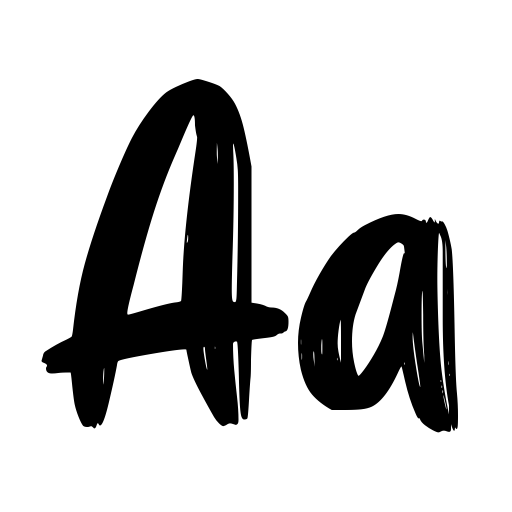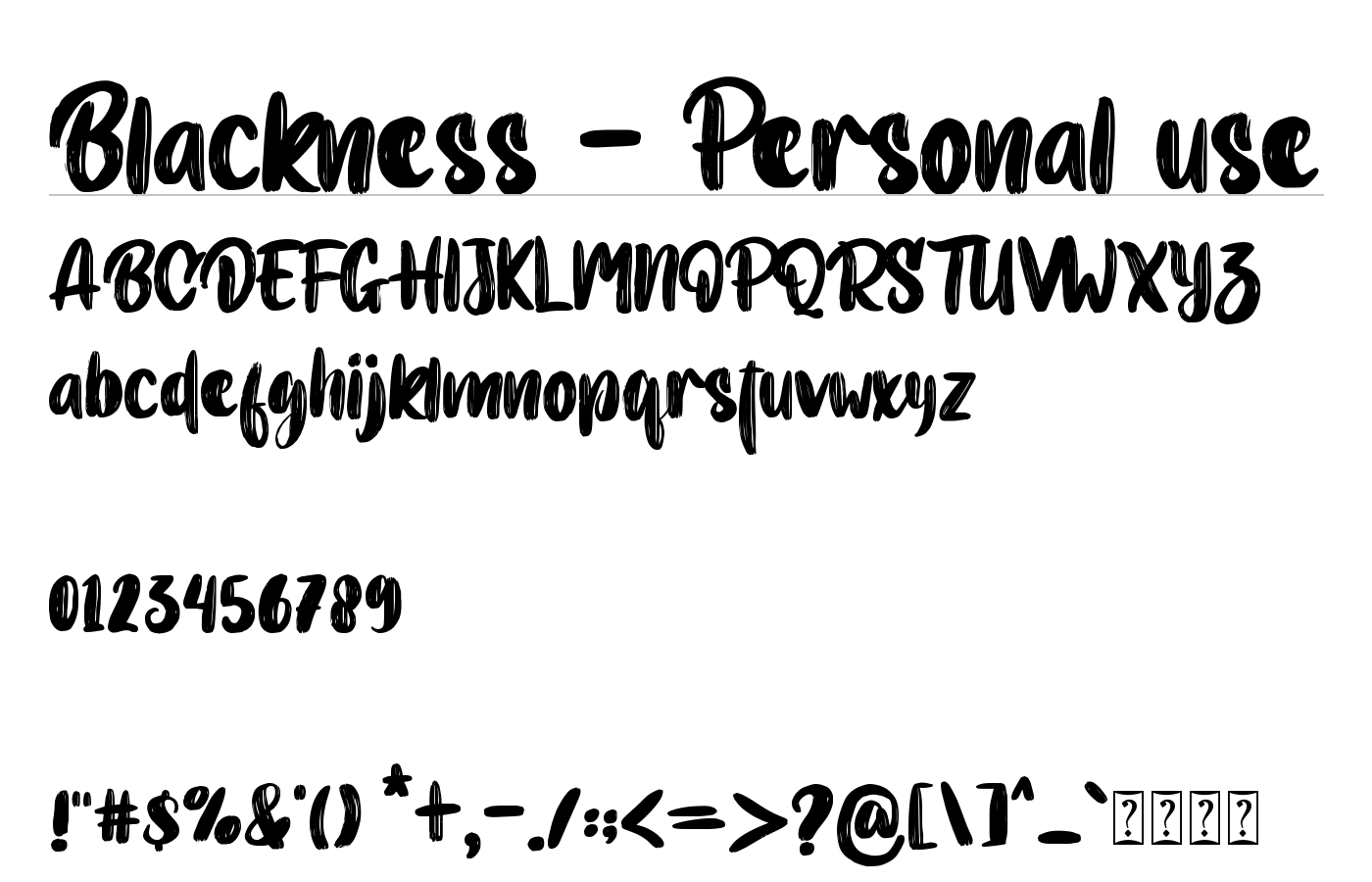
Blackness is a bold, brush-script font with a playful and lively character, featuring thick, slightly irregular strokes that mimic hand-painted lettering. Its tall x-height and casual style make it ideal for adding a dynamic, creative touch to logos, headlines, and packaging, especially for brands seeking an energetic and friendly vibe. This font works well in designs that want to stand out with an informal yet striking handwritten look.
Blackness - Personal use Font
About Blackness - Personal use Font